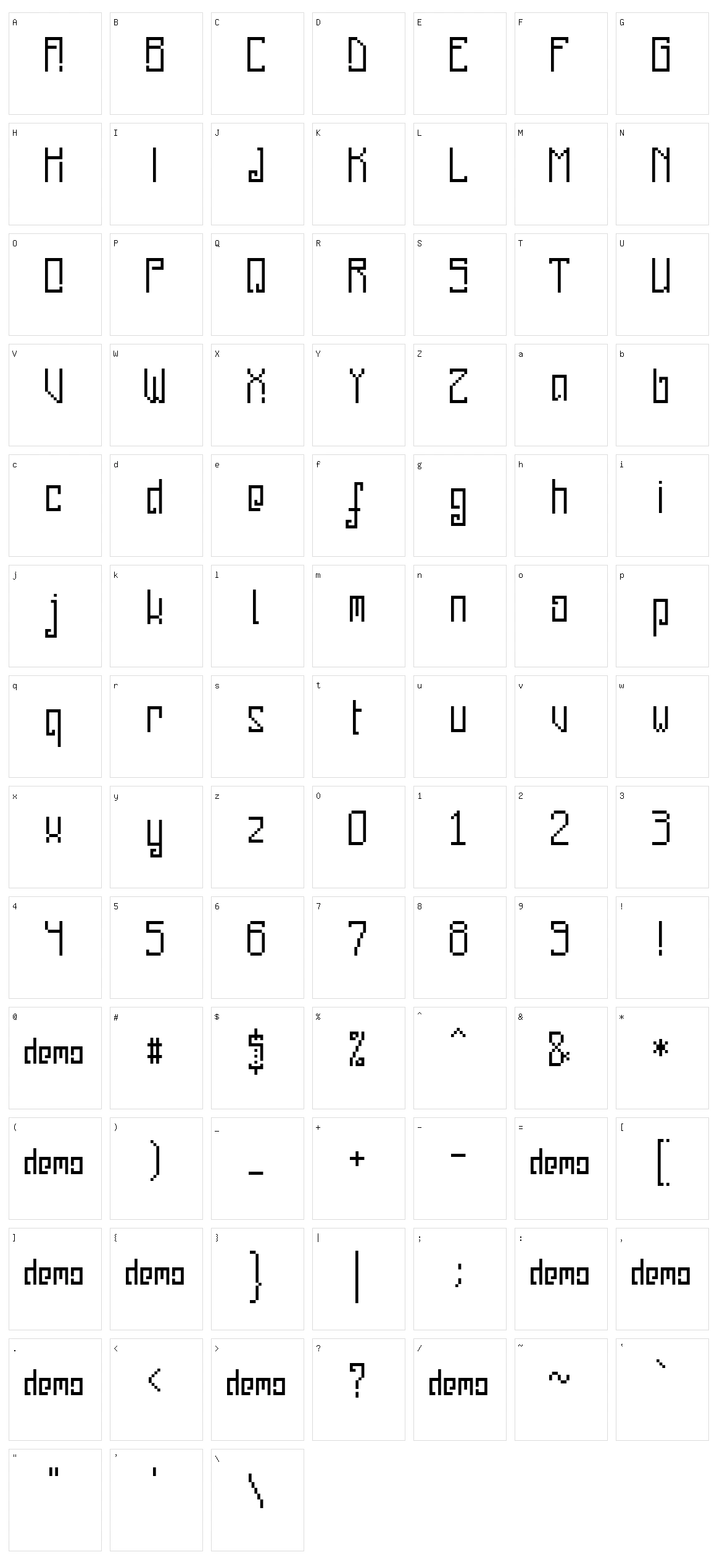
Pixelanky CE DEMO
Designed by: Vaclav Krejci
Pixelanky
Pixelanky is designed for use in Flash so it doesn´t blur or fill. This font also works well in dynamic and input text fields (Flash 5 and higher).
Pixelanky CE includes full Central European character set, with Regular and Bold style. Pixelankycl CE is the same font, but without small gaps and curls - easily readable, less decorative.
This family is optimized for use at 16 pixels.